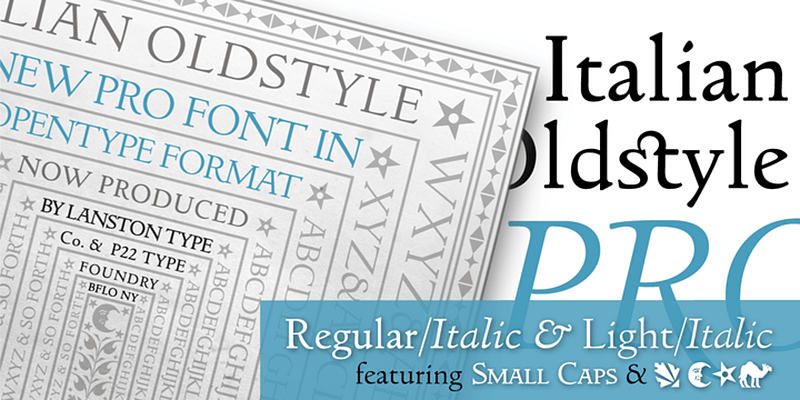
LTC Italian Oldstyle was designed by Frederic W. Goudy in 1924. Goudy went back to Jenson’s original faces for his inspiration, and the result is the best Renaissance face adapted for modern use.